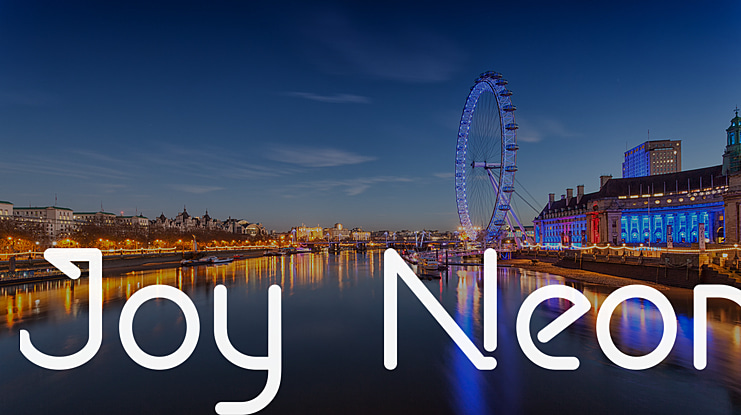
Joy Neon Font Family
Joy Neon is a trio font that consists of sans and script. Inspired by the neon design of a coffee shop at night, this font is incredibly authentic and complex, matching a wide variety of design projects!